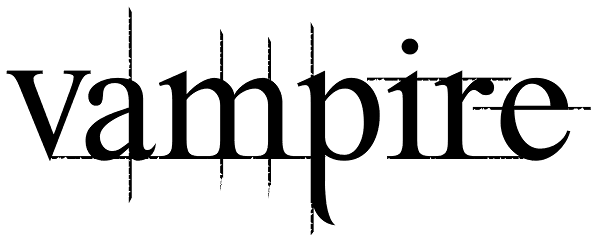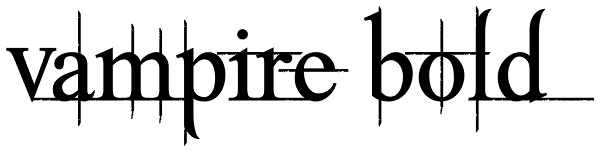
Vampire
Inspired by a famous vampire movie. This font is based on the character shapes of Free Serif, a sample font bundled with FontLab applications; it is quite similar to Times Roman.